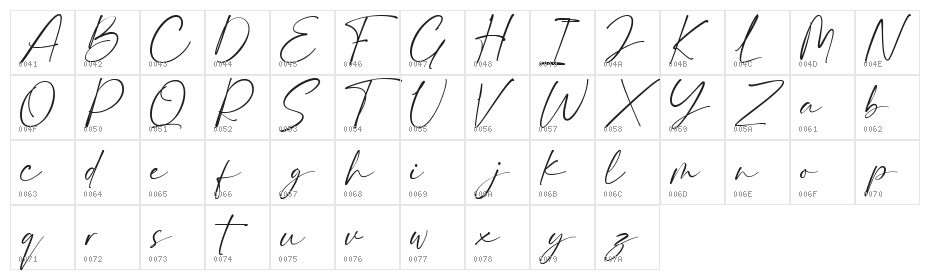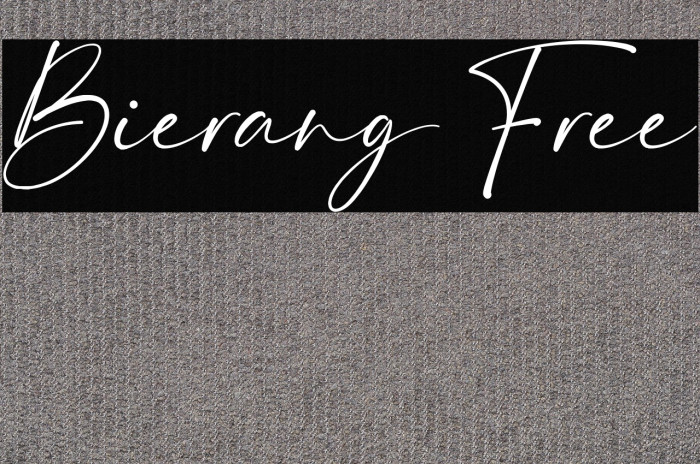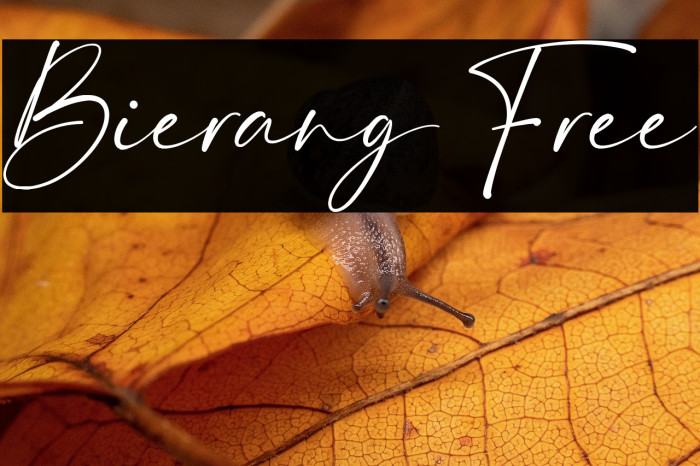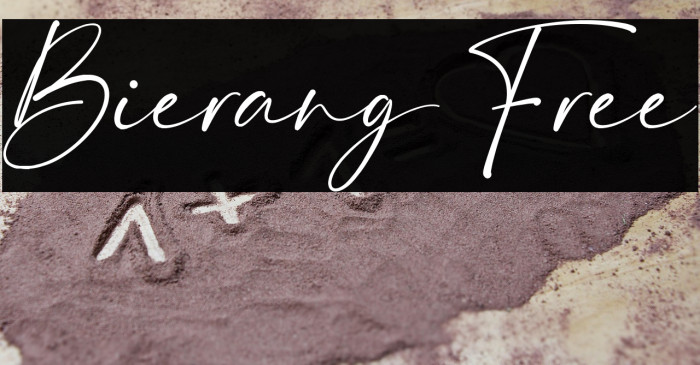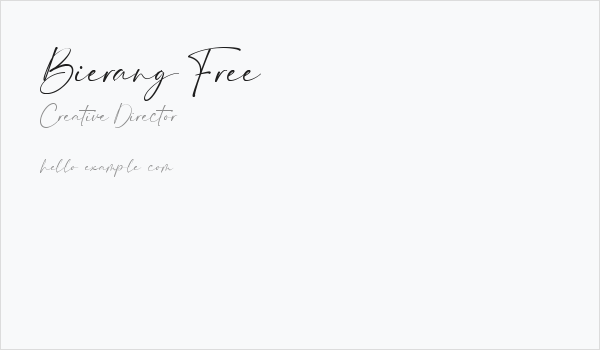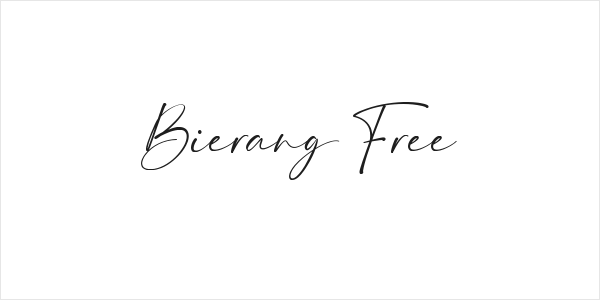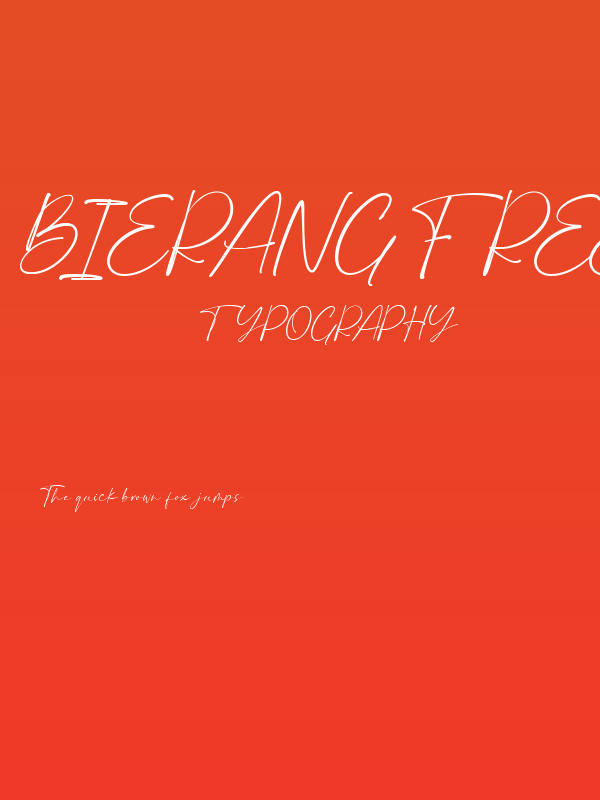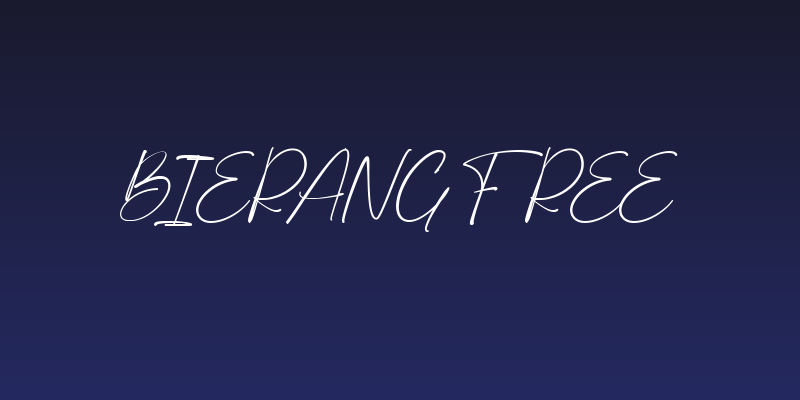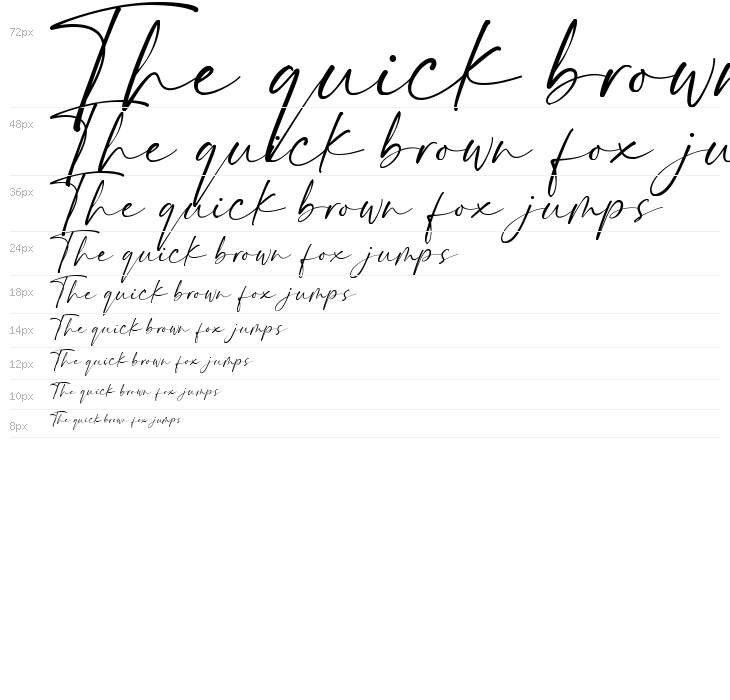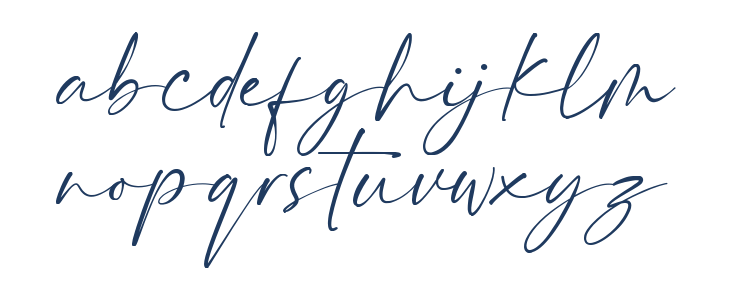
Bierang Free Font
Bierang Free Description
This font features a modern, handwritten style with a casual and flowing appearance. The letters are connected in a cursive manner, giving it a personal and informal touch. The strokes are smooth and consistent, with a slight variation in thickness that adds to its dynamic feel. The uppercase and lowercase letters maintain a cohesive look, while the numerals and special characters blend seamlessly into the overall design. This font is versatile and can be used to convey a sense of elegance and creativity.
| Proposed Projects | Ideal for wedding invitations, greeting cards, personal branding, and creative projects that require a personal touch. |